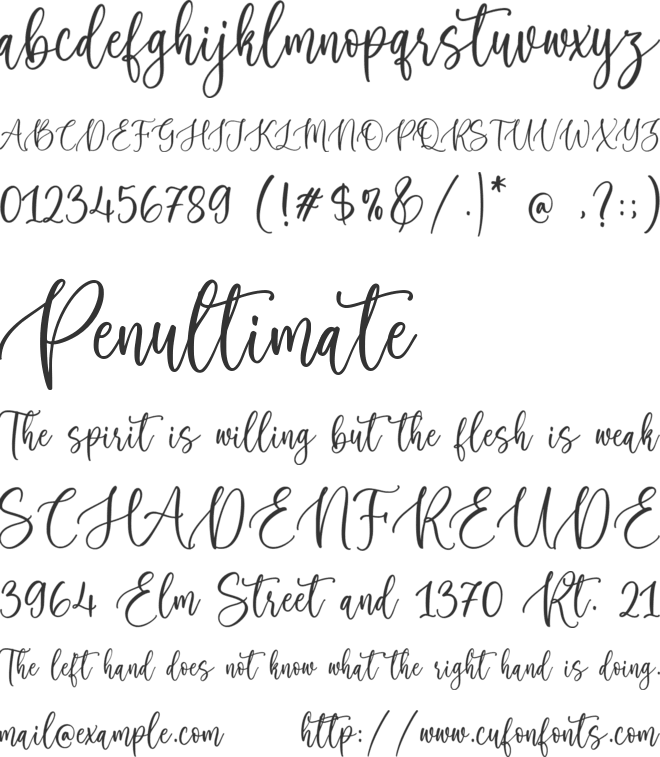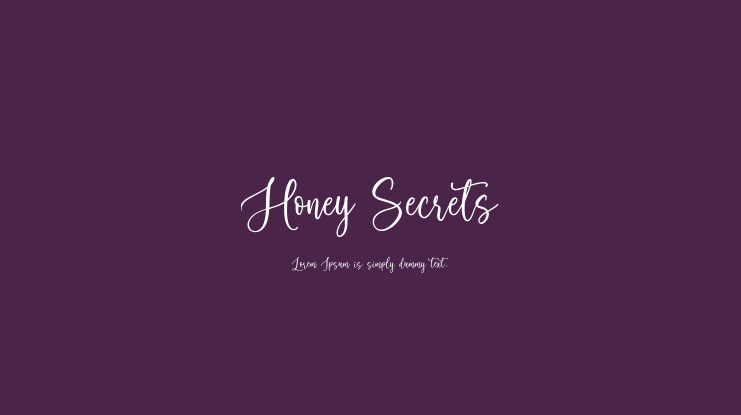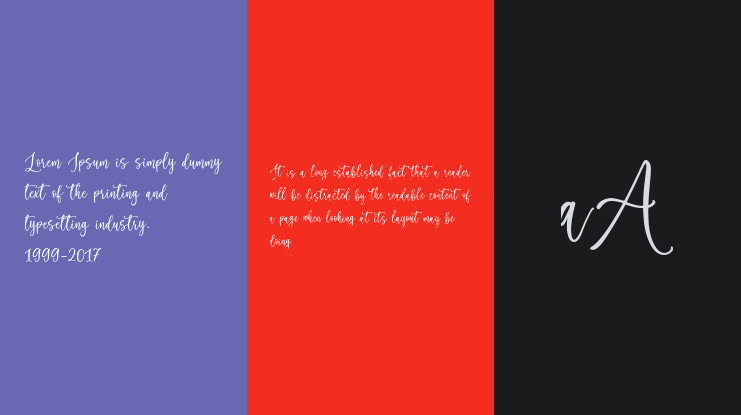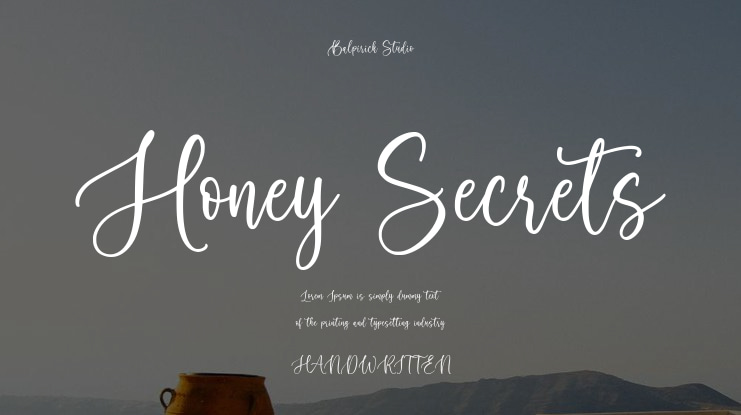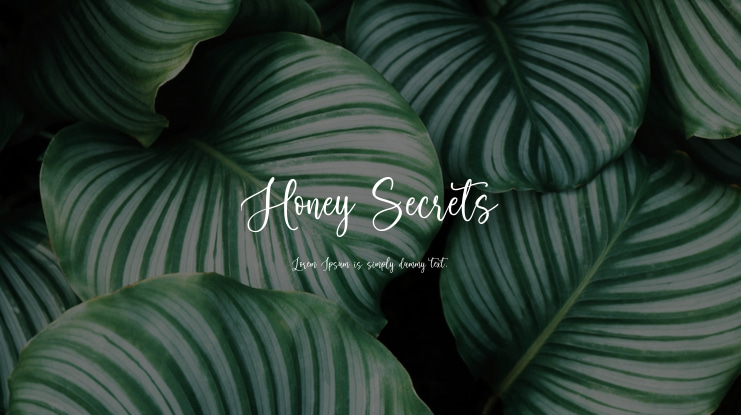
Honey Secrets Font
Introducing Honey Secrets, a Casual Script Font crafted by Balpirick Studio. This font is perfect for infusing a personal touch into your design projects. Its natural and organic feel, combined with its unique character, sets it apart.
Crafted with utmost care and attention to detail, Honey Secrets is an incredibly versatile font that can be used for a wide range of design projects. Whether it's logos, branding, invitations, or any other creative endeavor, this font is sure to deliver. Its modern and handwritten style adds a distinctive character that leaves a lasting impact.